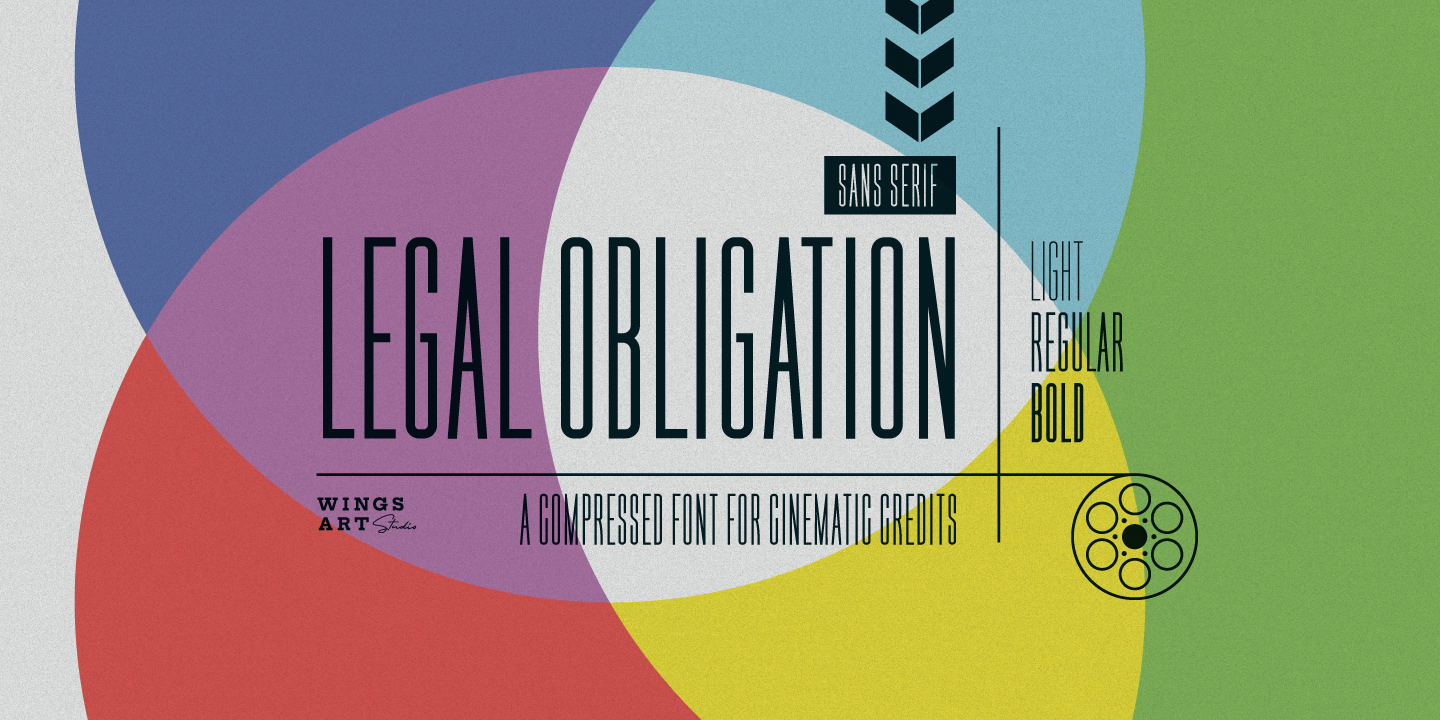
Legal Obligation Sans Serif Font is ideal for law firms, legal document preparation services, government institutions, corporate compliance departments, judicial system publications, professional legal consultants, and authoritative regulatory agencies. This commanding typeface embodies legal authority and professional responsibility, bringing institutional credibility and serious commitment to any design project requiring legal gravitas and professional accountability.
What makes Legal Obligation Sans Serif Font exciting is its powerful combination of legal authority and modern professional clarity that perfectly captures the essence of binding commitments and institutional responsibility. The font features clean letterforms with authoritative proportions and precise geometric structure that evoke both the clarity of legal documentation and the unwavering strength of constitutional principles. Its trustworthy character inspires confidence while maintaining exceptional readability for both complex legal documents and professional communications.
The Legal Obligation Sans Serif Font family includes comprehensive weight variations from light to bold, complete with condensed styles and legal ornamental elements. The character set features professional ligatures, legal symbols, judicial alternates, and institutional decorative accents that enhance the font's authoritative appeal. Advanced OpenType features provide precision typography for international legal systems and multilingual government applications.
Whether you're designing legal practice brands, creating government institutional materials, or developing regulatory compliance content, Legal Obligation Sans Serif Font Free Download provides exceptional authority and versatility. This professional typeface transforms ordinary text into binding legal experiences that communicate serious commitment while establishing trusted recognition in competitive legal services and government institution marketplaces.